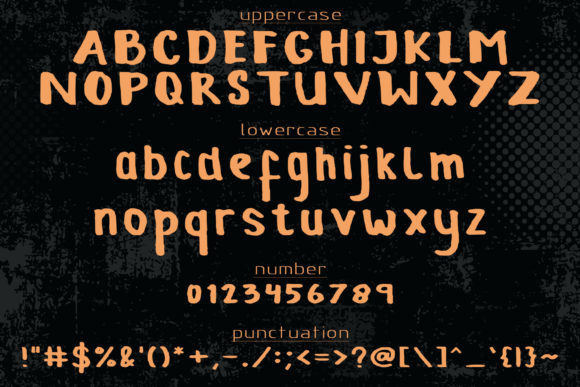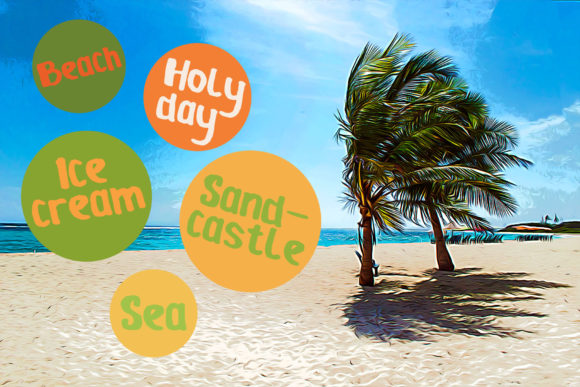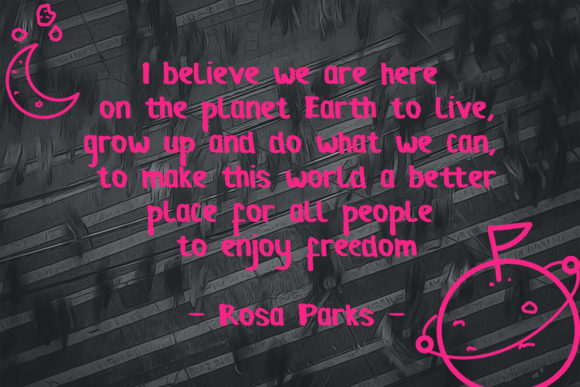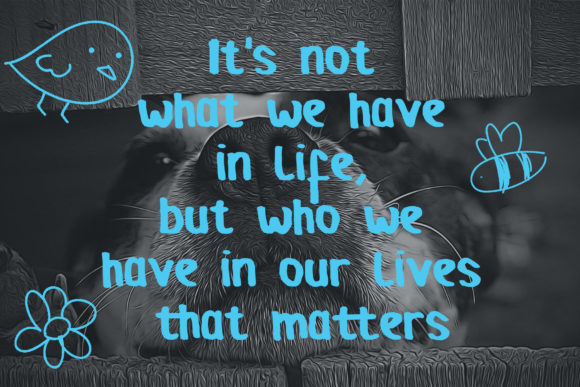
Introduction to Quickday Font
Have you ever been in the middle of a creative project, staring at a blank canvas or screen, and suddenly, the perfect font pops into your head? That’s exactly what happened to many designers when they discovered the Quickday Font. This cool display font is more than just a stylish addition to your design – it’s a game-changer.
With its unique blend of readability and friendliness, the Quickday Font is perfect for cartoon-related designs, children’s games, quotes, titles, brand names, book covers, posters, or any other creation that requires a touch of fun. Whether you’re a seasoned designer or just starting out, this high-quality font is a valuable resource that can elevate your designs to the next level.
Key Features of Quickday Font
- High-quality, versatile design suitable for various creative projects, including digital art and print materials.
- Comes with a transparent background, making it easy to customize and integrate into different design elements.
- Features a clean, modern design with a unique aesthetic, perfect for designers looking for a distinctive font.
- Includes a range of glyphs and characters, making it suitable for both personal and commercial use.
- Available in a single font size and resolution, with scalable vector graphics (SVG) for crisp, high-quality output.
- Designed as a design resource for creative professionals, ideal for logos, typography, and other design elements.
Honest Review: Quickday Font
I recently came across the Quickday Font, and I must say, it’s been a game-changer for my creative projects. As a designer, I’m always on the lookout for high-quality design resources that can elevate my work.
One of the standout features of the Quickday Font is its sleek and modern aesthetic. The font is perfect for anyone looking to add a touch of sophistication to their designs. I’ve used it for everything from logos to brochures, and it’s always impressed.
- ✨ High-quality design with a unique aesthetic
- ✨ Perfect for creative projects requiring a modern look
- ⚠️ Limited character set, which may not be ideal for longer texts
- ⚠️ Transparent background may not work well with all design elements
Overall, I’m extremely satisfied with the Quickday Font. It’s a versatile and high-quality design resource that has become a staple in my design arsenal. If you’re looking for a font to elevate your creative projects, I highly recommend giving the Quickday Font a try.
Introduction to Quickday Font
The Quickday Font is a high-quality design resource perfect for creative projects. Its transparent background makes it versatile and easy to use in various applications.
To get the most out of Quickday Font, use it in combination with other design elements to create visually appealing designs. Experiment with different font sizes, colors, and layouts to achieve a unique look.
Quickday Font is perfect for creating: